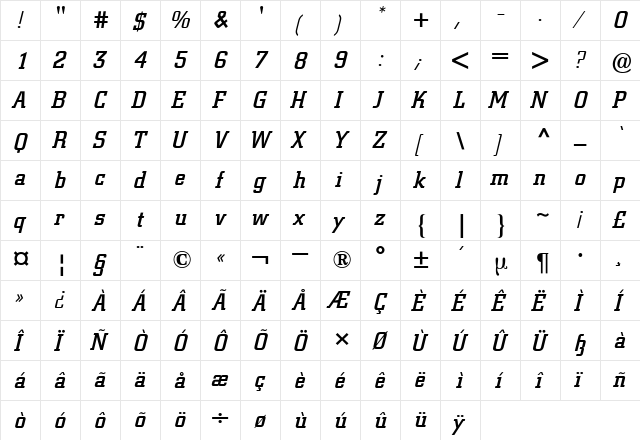
City BQ Italic
Design Context for City BQ Typeface
City BQ offers clean, dependable letterforms without strong stylistic allegiance, making it a practical choice for designers who need flexibility. The slanted form adds forward momentum and visual energy.
Pro Tip: Try City BQ for annotation and caption copy alongside an upright companion — the contrast in angle creates a dynamic but ordered typographic system.